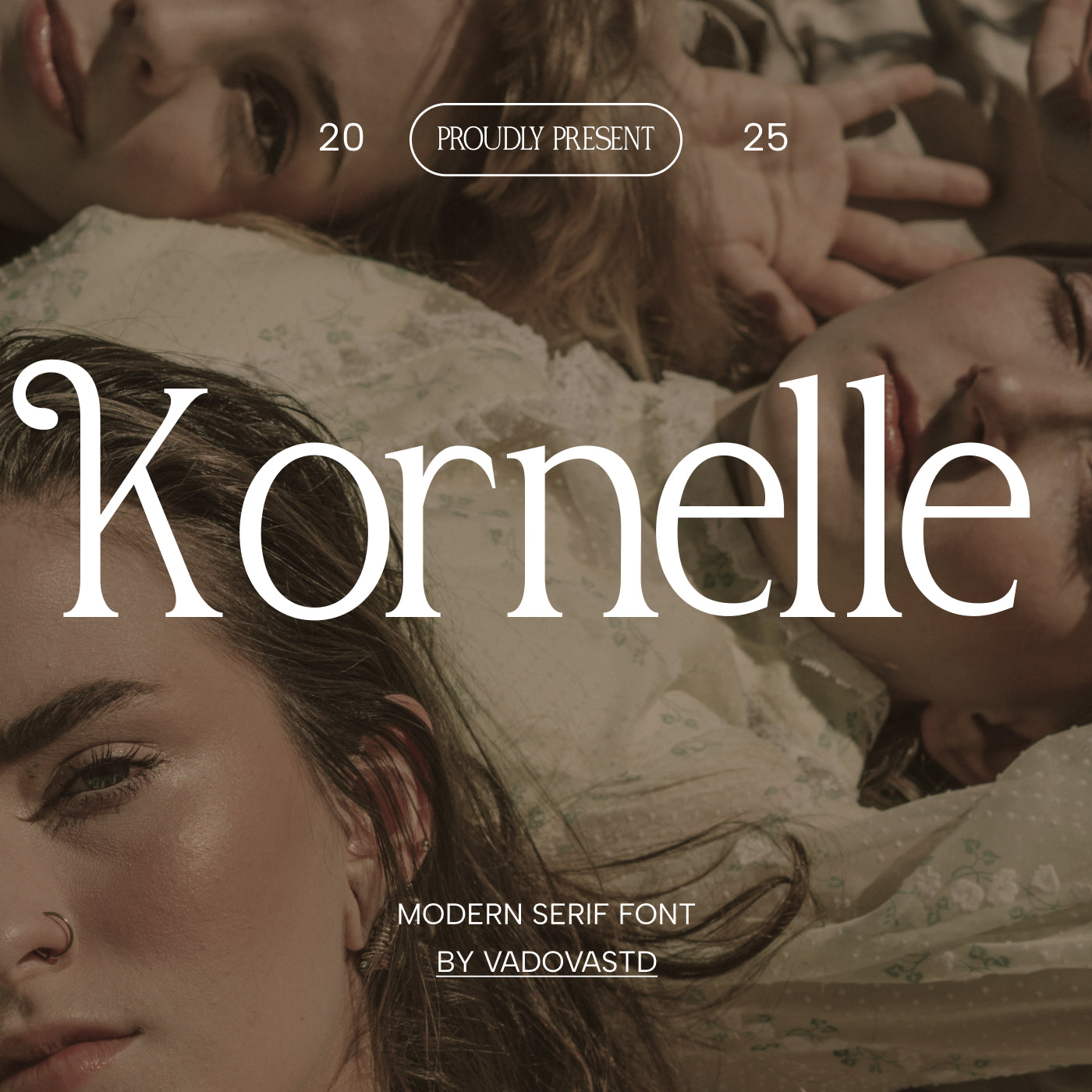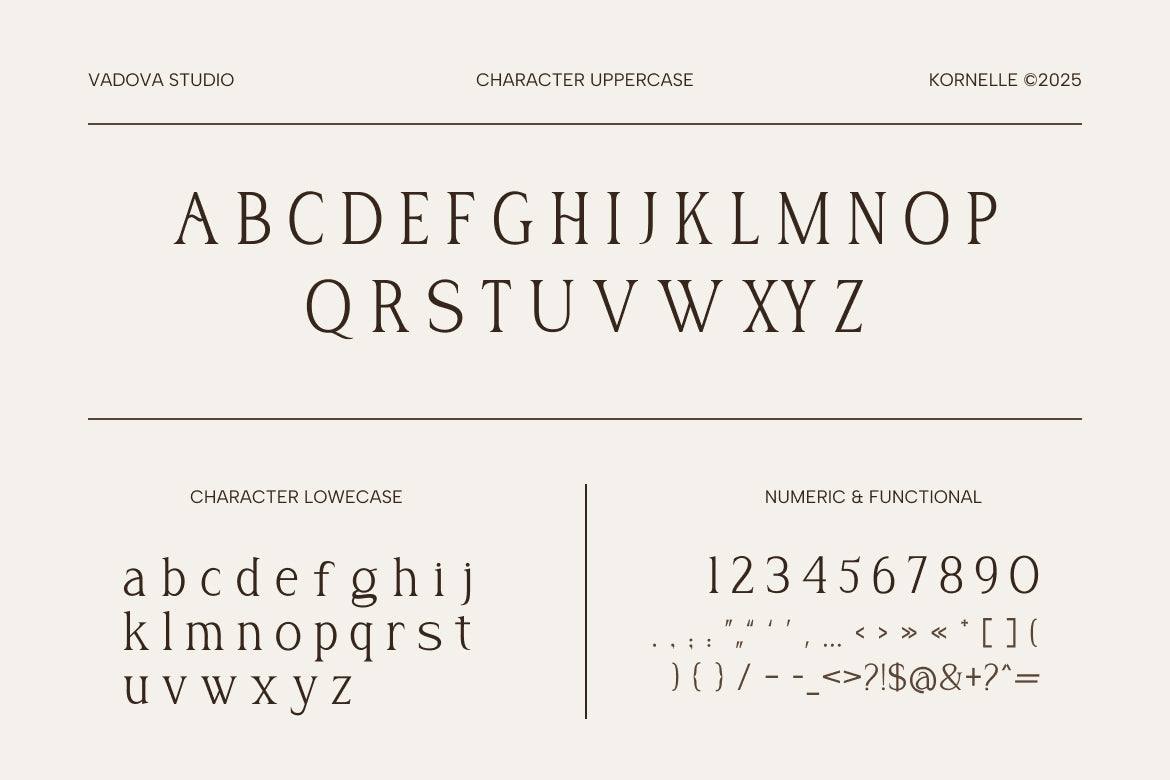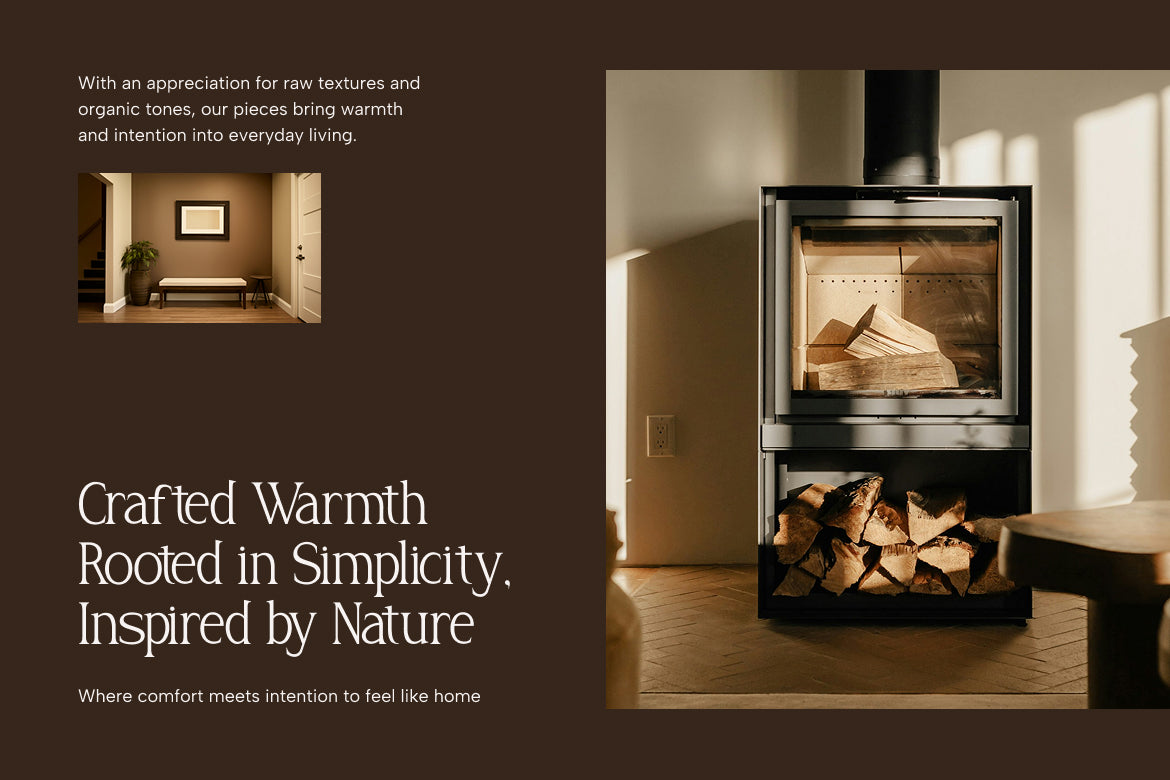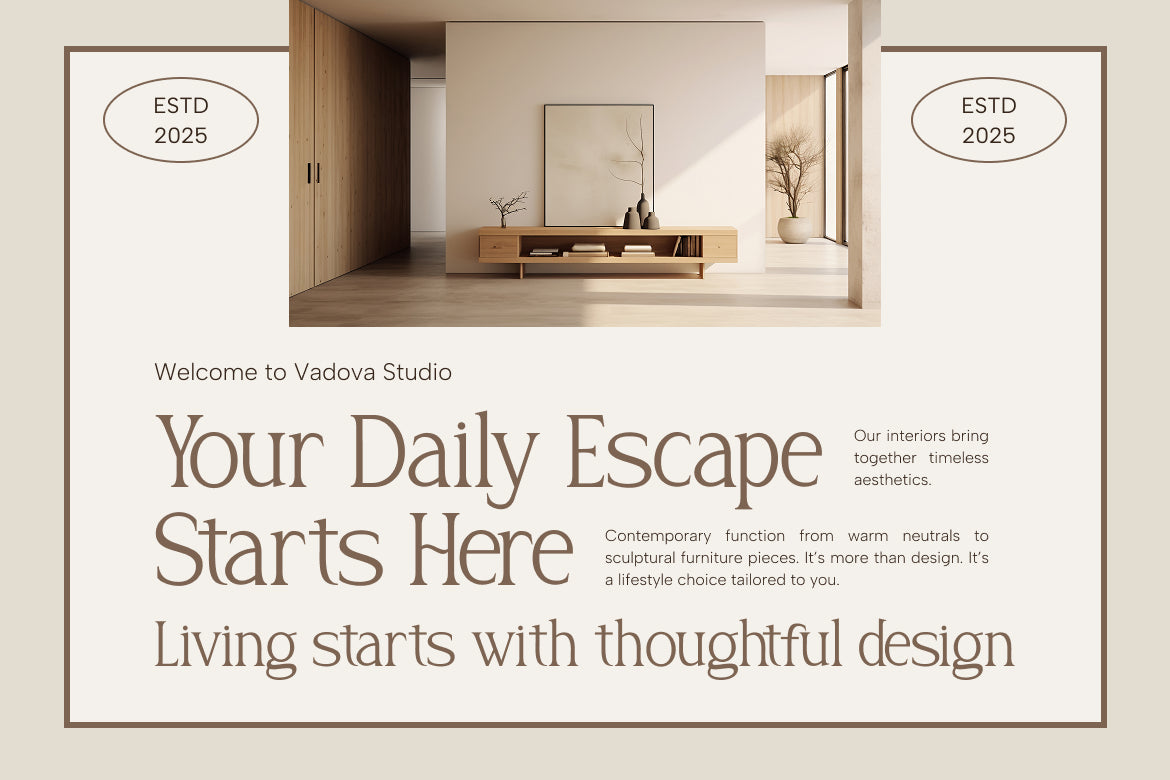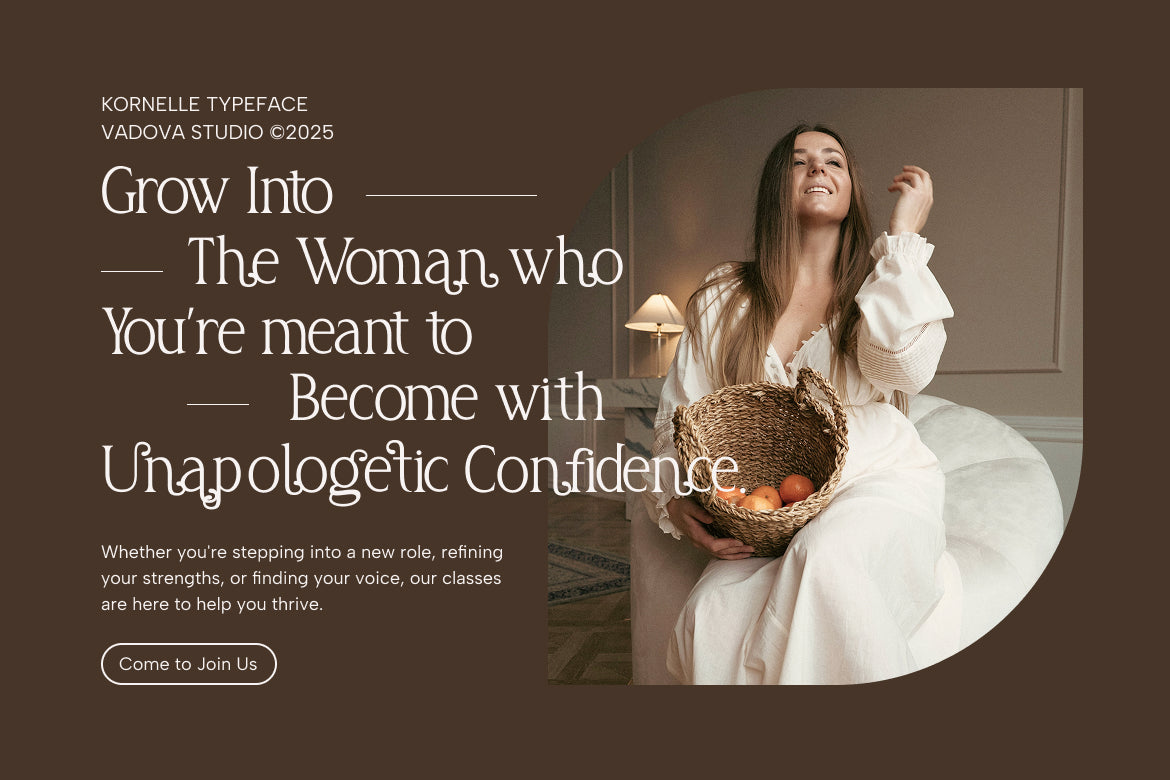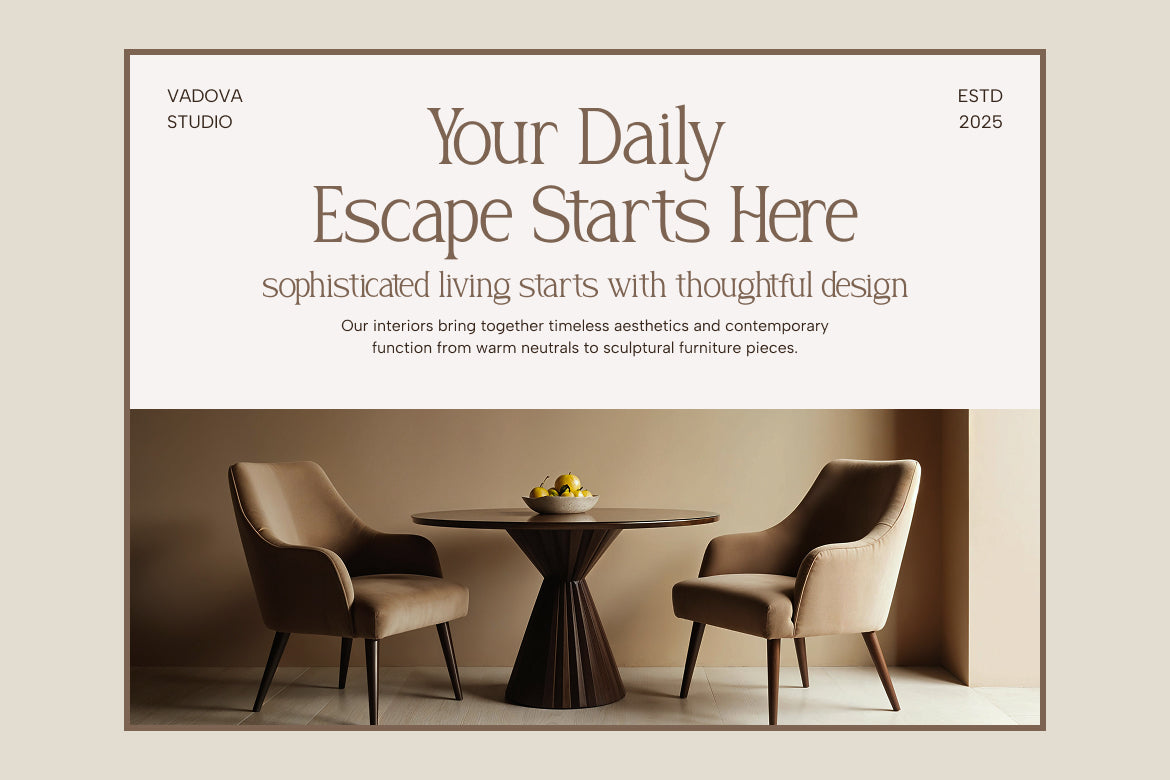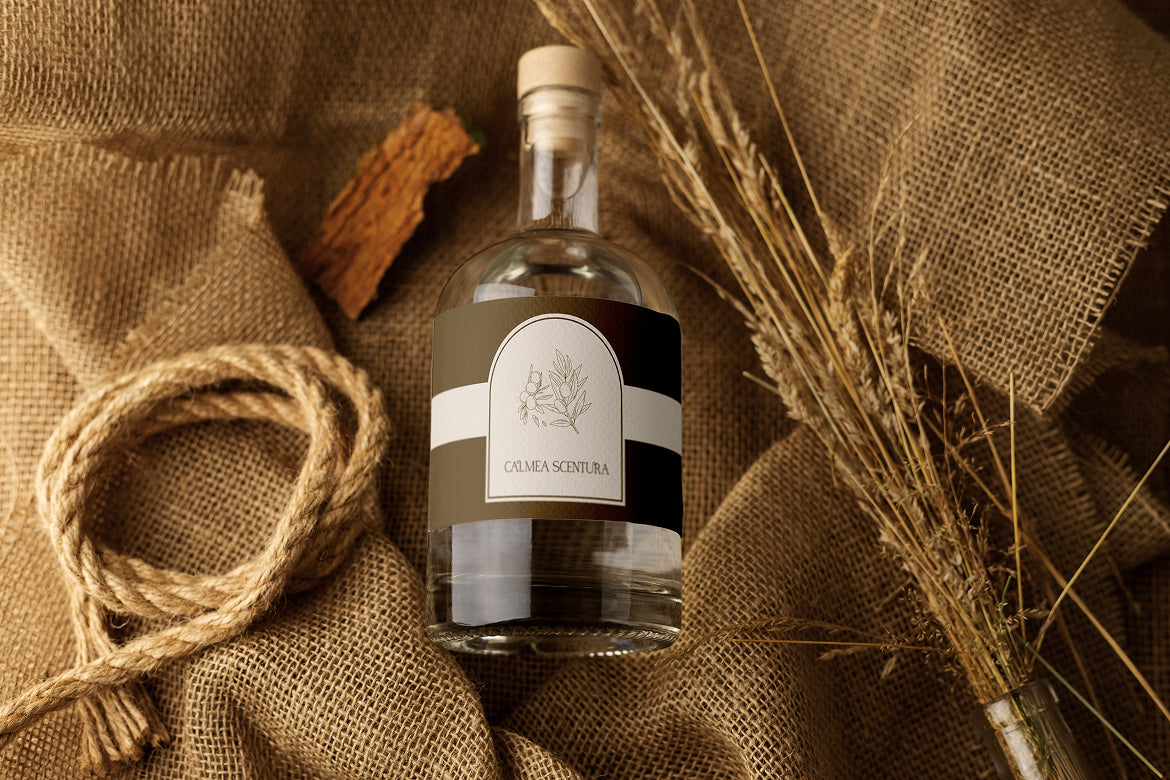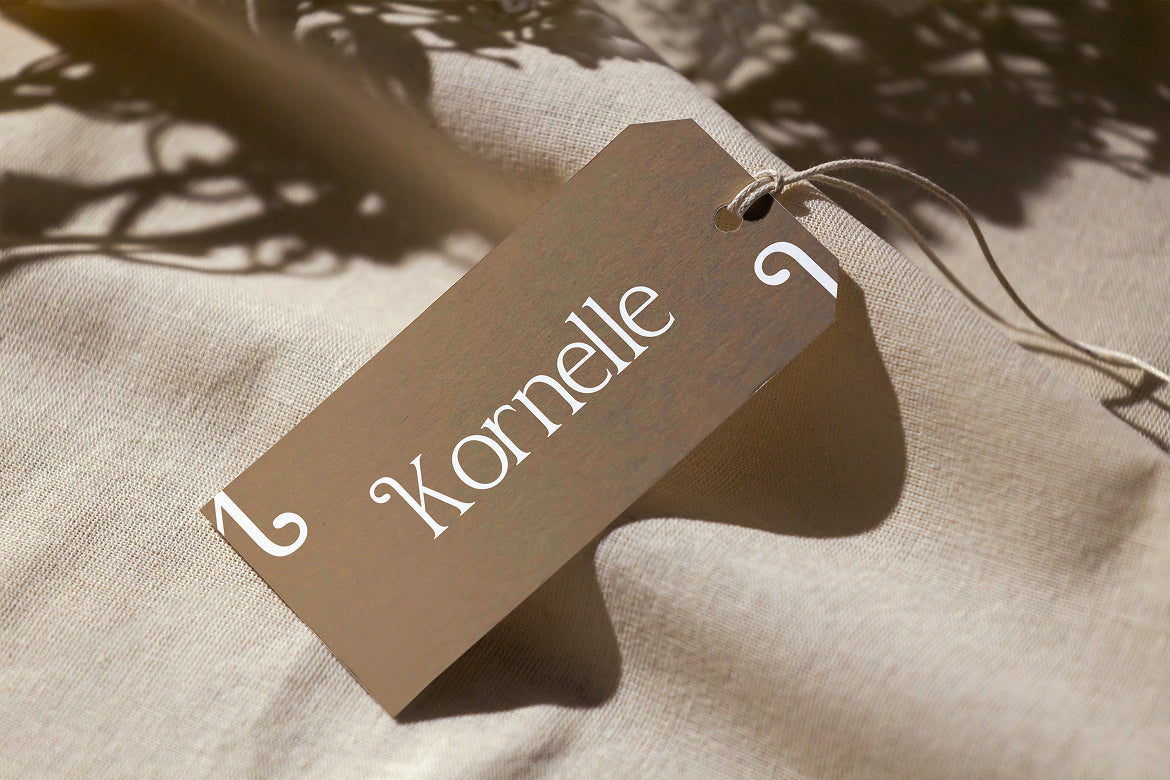
Kornelle Modern Serif Font
Kornelle Modern Serif Font Kornelle is a modern serif font featuring elegant curves, artistic swashes, and a vintage-inspired personality. Its refined and expressive character makes it ideal for editorial design, wedding branding, fashion labels, feminine logos, and other sophisticated projects. Kornelle blends timeless charm with a fresh contemporary flair, making it versatile for both digital and print usage. Every letterform feels handcrafted, adding emotional warmth and premium appeal to your typography.
Kornelle is a modern serif font with curves and swashes, including uppercase and lowercase characters, numerals, and punctuation. It is available in TTF, OTF, and WOFF formats.